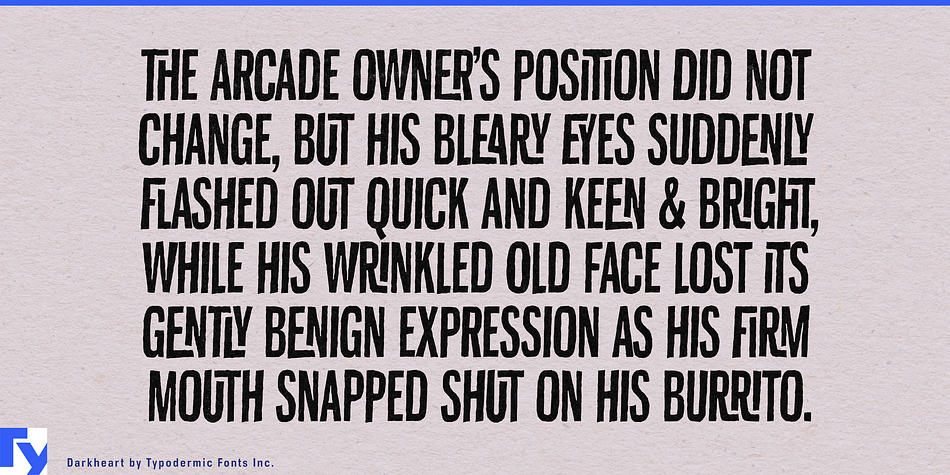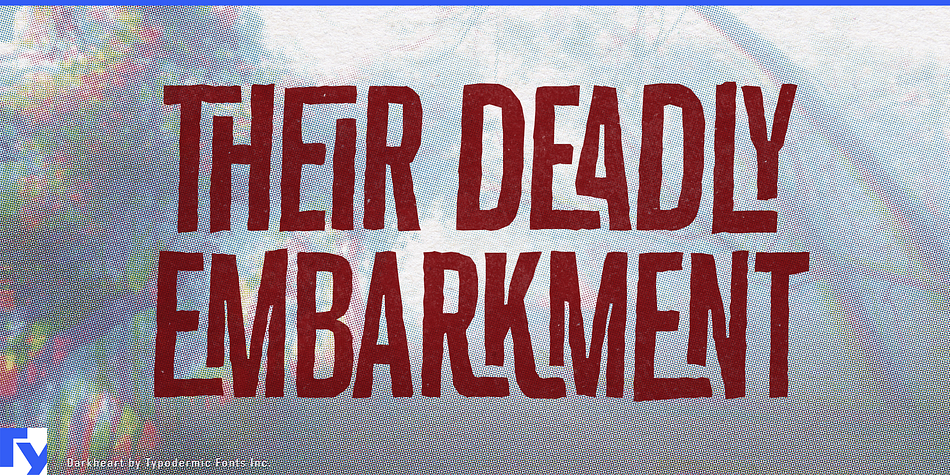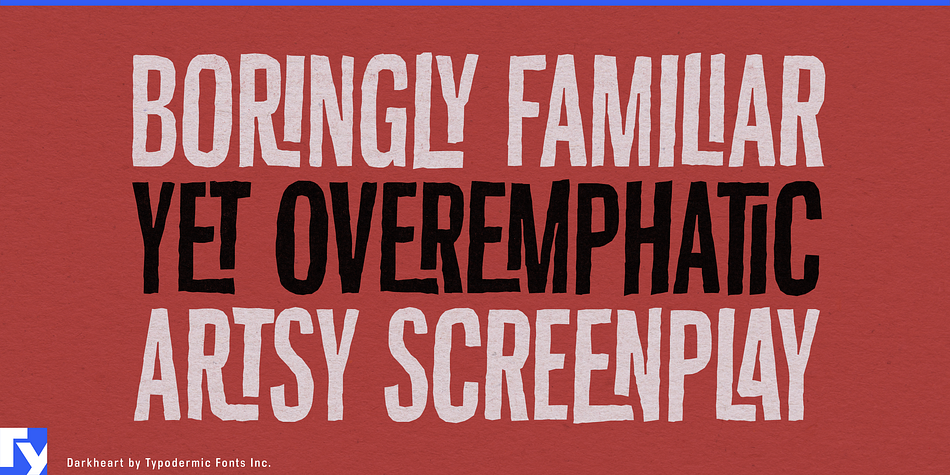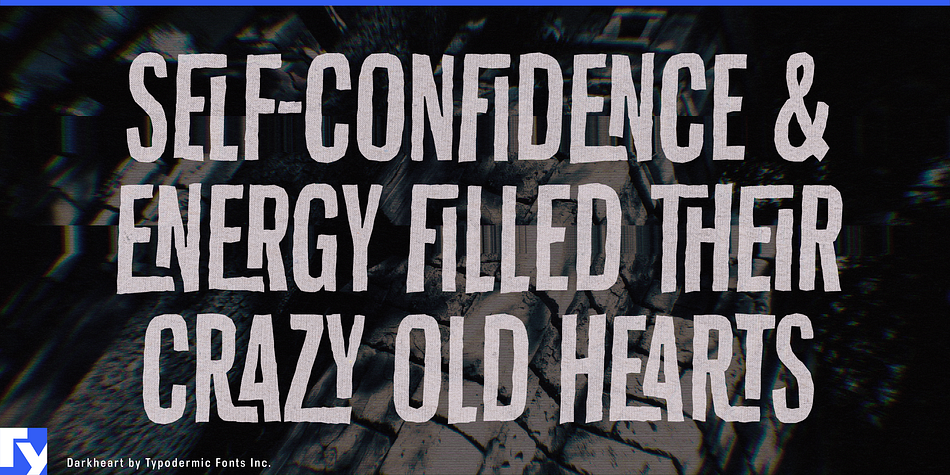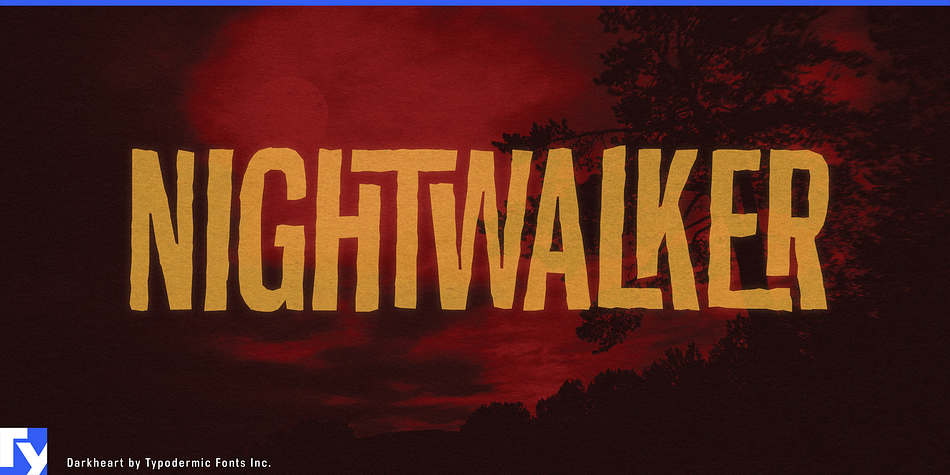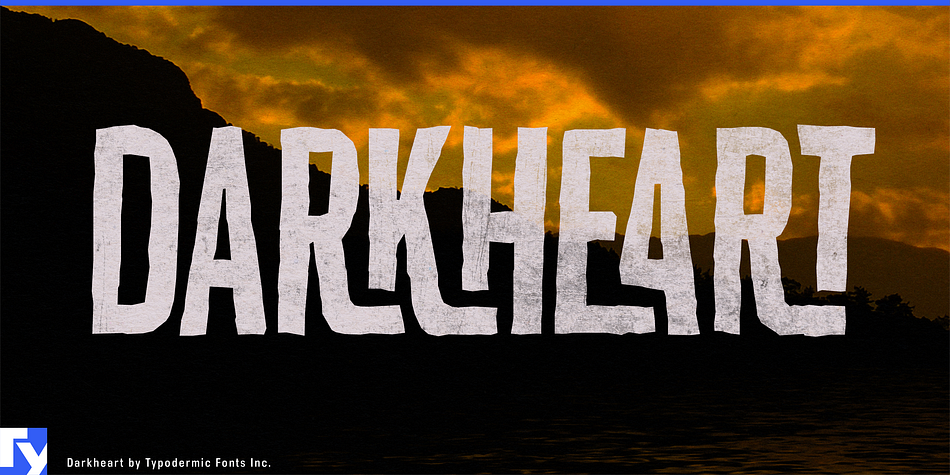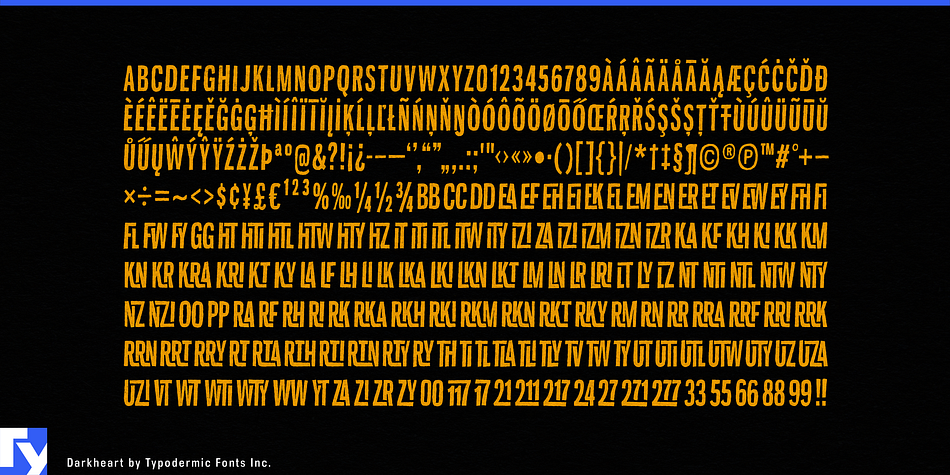
Darkheart is a hand display and kids font published by Typodermic Fonts Inc.
Darkheart is a dark, eerie interlocking font. In OpenType savvy applications, certain letter sequences automatically join to form straggly, spooky letter combinations.